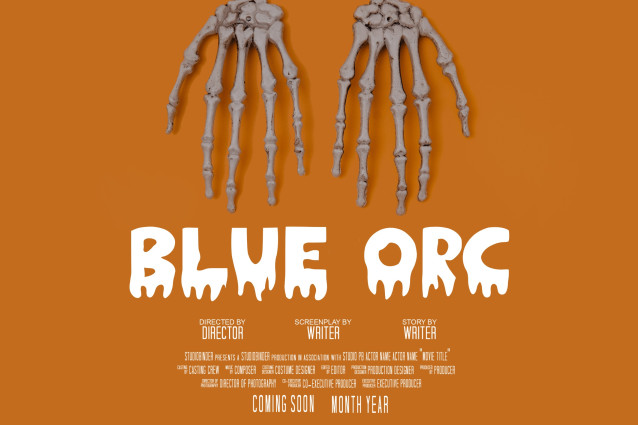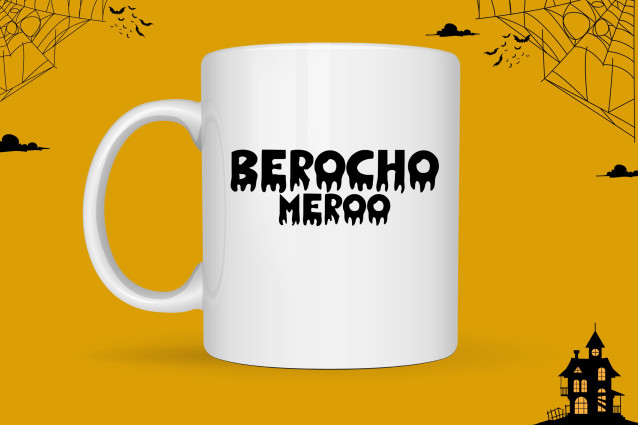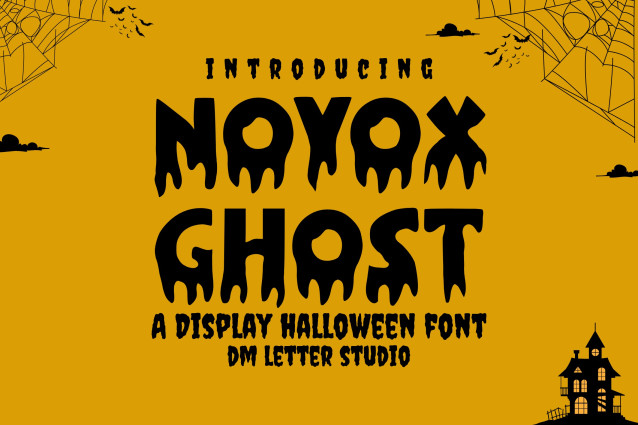
Novox Ghost Font
Novox Ghost is a spine-chilling display font born from the shadows of urban decay and horror aesthetics. Featuring elongated drips, eerie shapes, and a semi-transparent “ghostly” texture, this font captures the spirit of fear, mystery, and rebellious style. Whether you’re designing for Halloween, metal bands, street fashion, or digital art, Novox Ghost brings an unforgettable haunted edge.